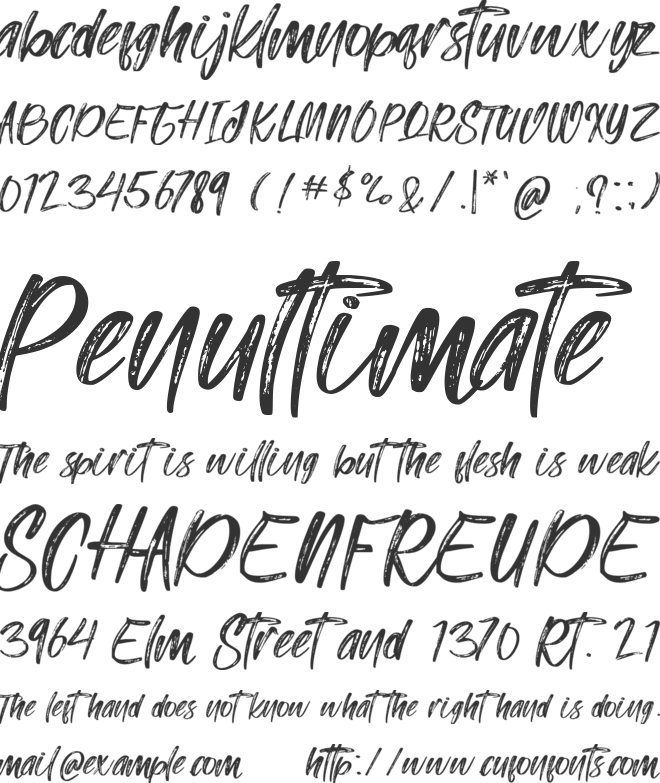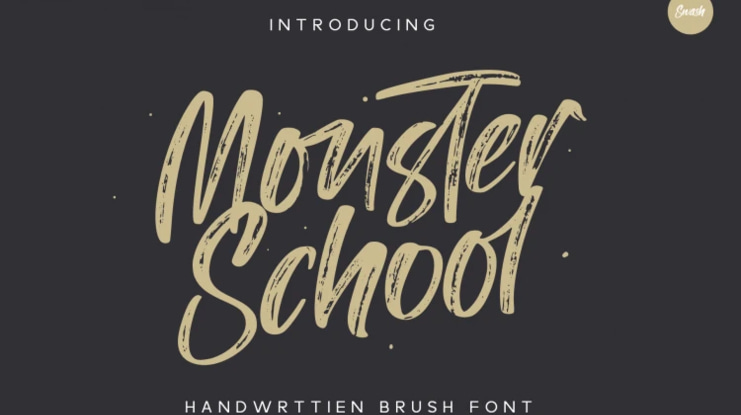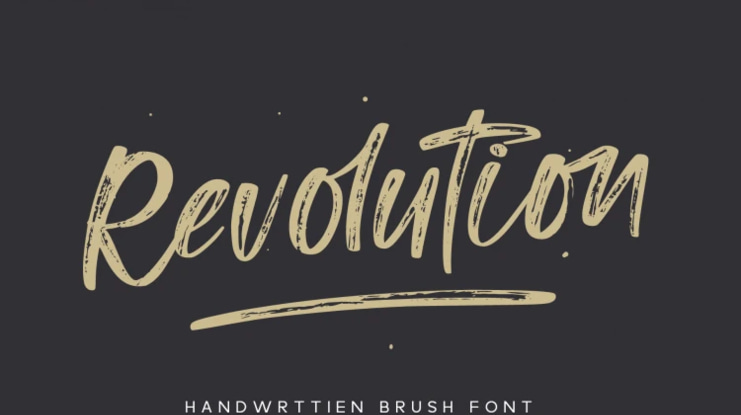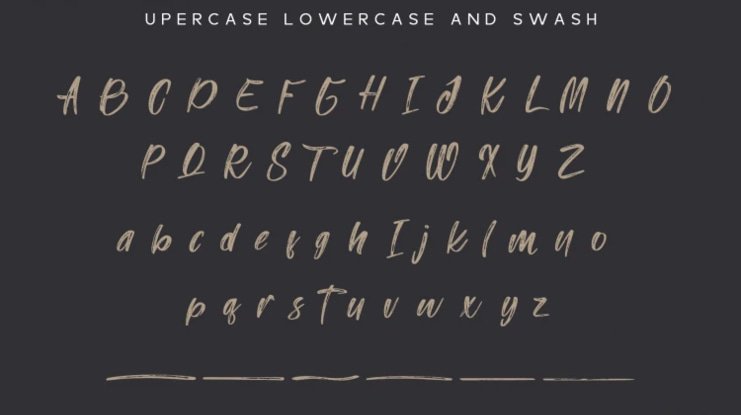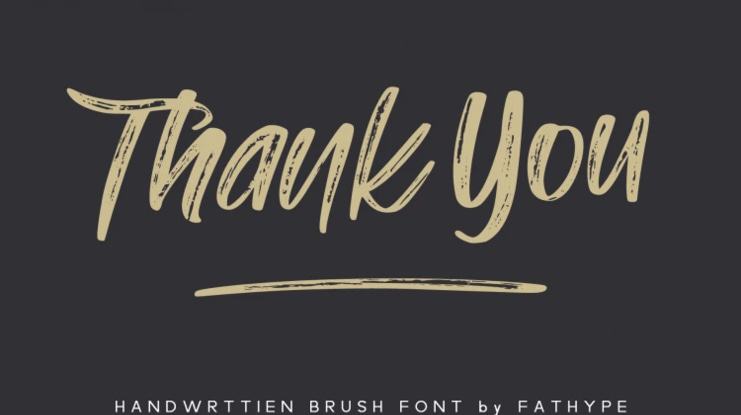
Monster School Font
introduces Monster School a handwritten font with a highly detailed dry brush texture with added swash.
Monster School is suitable for classic or modern design projects. equipped with alternative swash will add maximum design.
You can use it for business branding, t-shirt design quotes, blog headers, fashion apparel, logos and more.